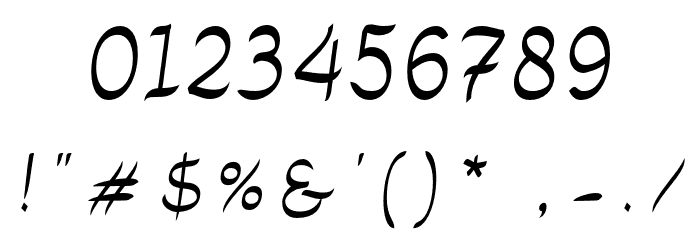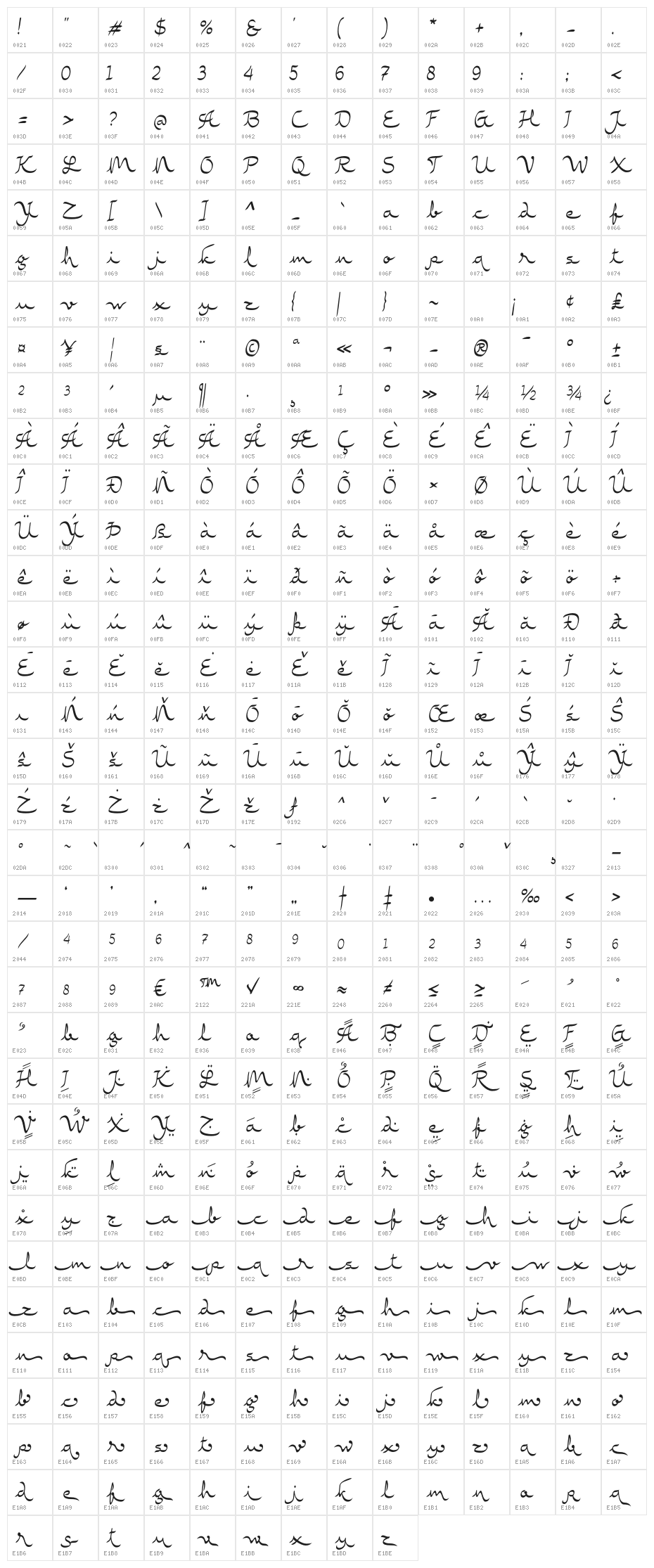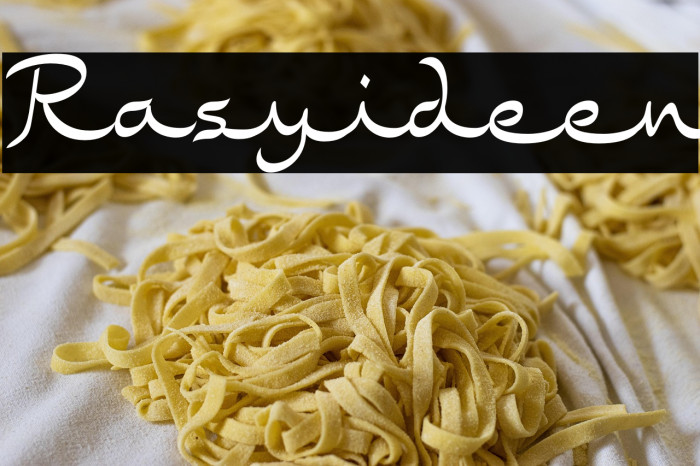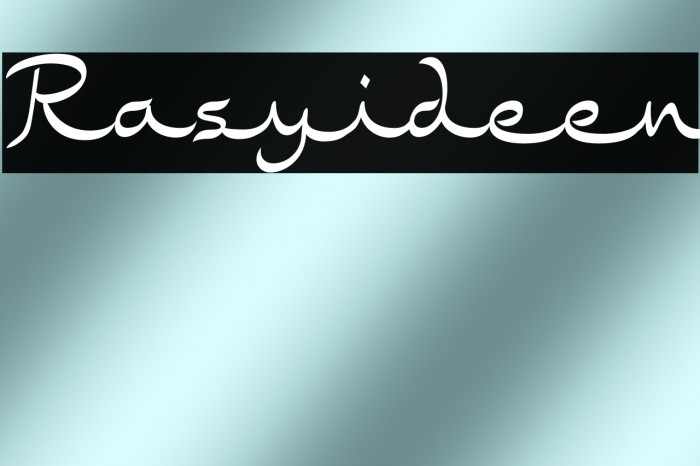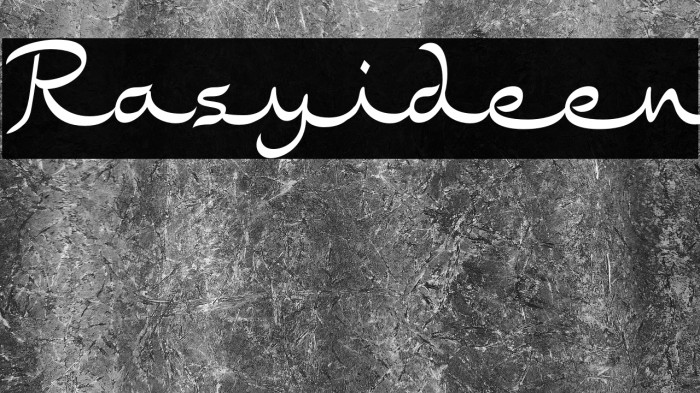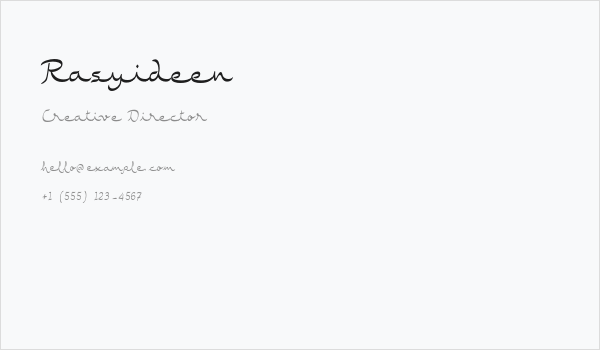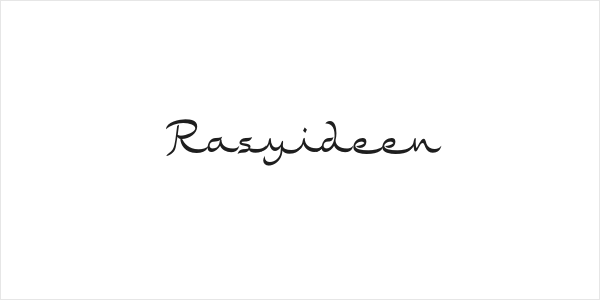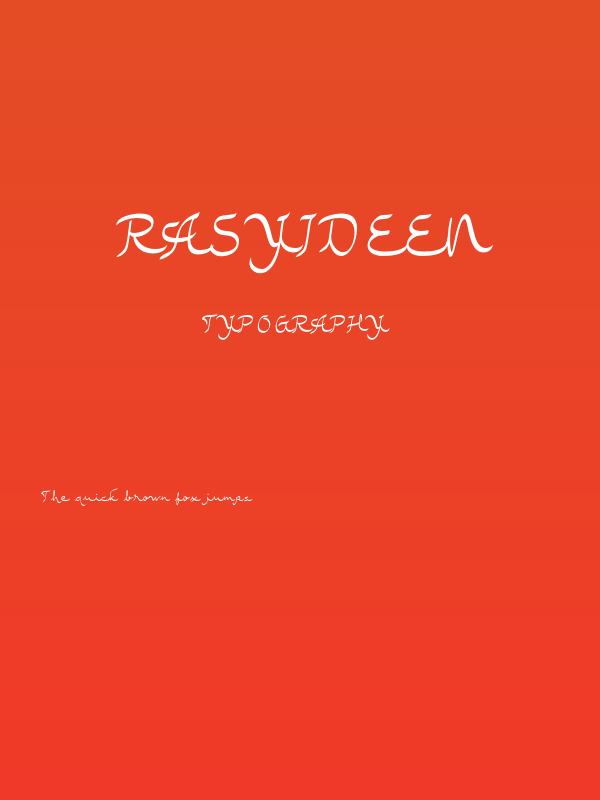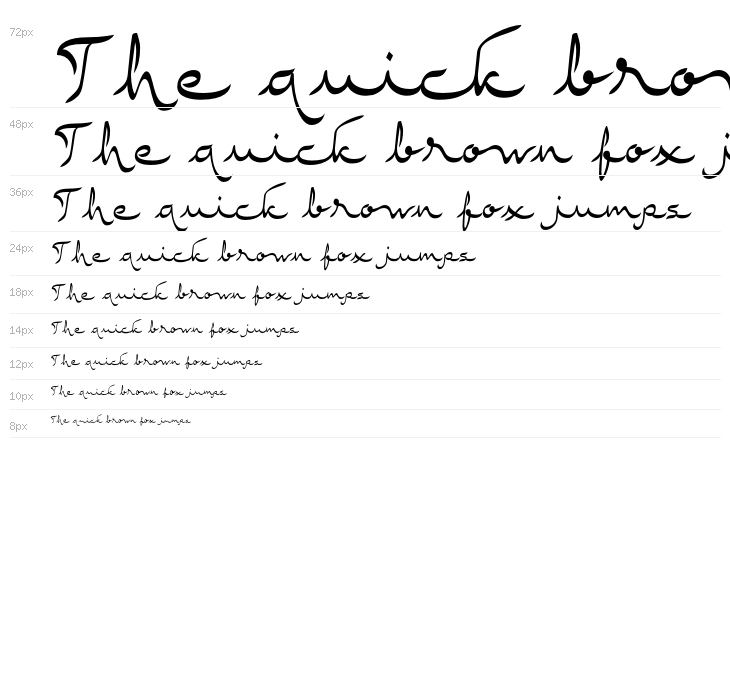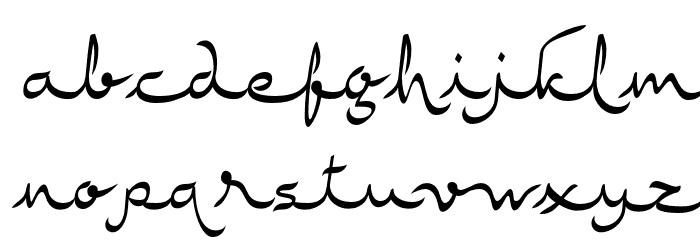
Rasyideen Font
Rasyideen Description
This font features a fluid, cursive style that mimics elegant handwriting. The characters are connected, providing a seamless flow from one letter to the next. Uppercase letters are slightly more embellished, with graceful loops and curves, while lowercase letters maintain a consistent, smooth appearance. The numerals are distinct yet harmonize well with the overall script style. Special characters are crafted with the same attention to detail, ensuring they blend seamlessly with the rest of the font. This font exudes a sense of sophistication and personal touch, making it ideal for projects that require a handwritten aesthetic.
| Use Case | Logos, Invitations, Personal Correspondence |
| Proposed Projects | Ideal for wedding invitations, personal letters, branding materials, and greeting cards. |